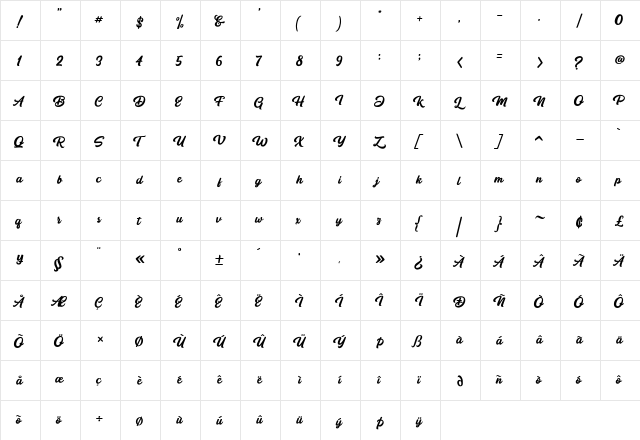
Botram Regular
| Foundry | Budi Erlangga |
| Designer | Budi Erlangga |
Design Context for Botram Typeface
Botram is a composed and adaptable typeface that performs quietly and consistently across a wide range of design contexts.